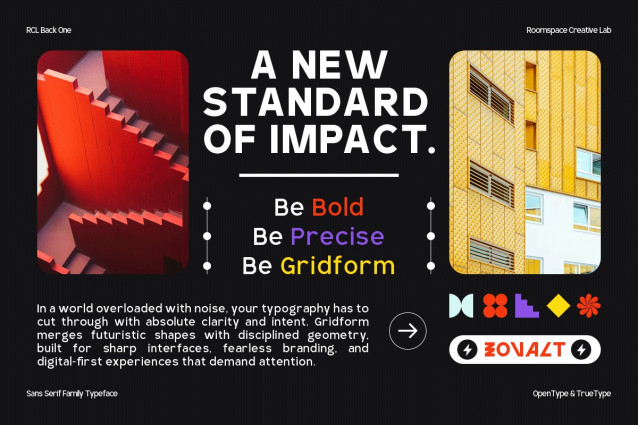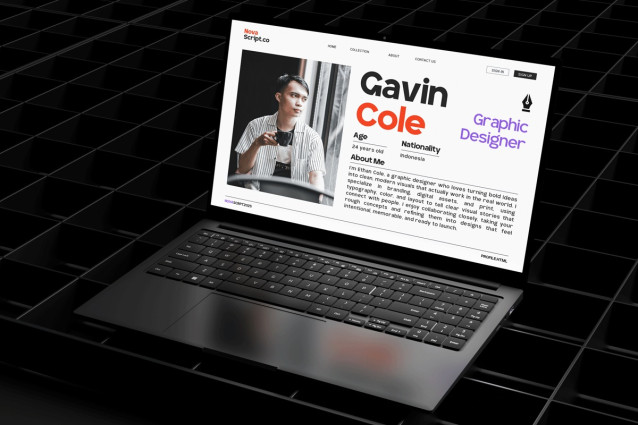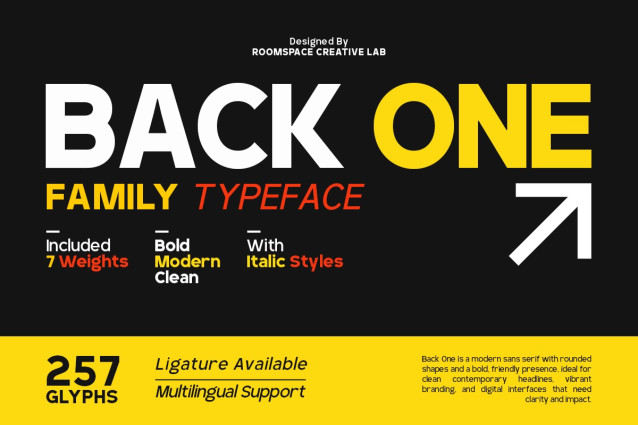
RCL Back One Font
RCL Back One Font is a bold modern sans-serif font family created to bring confidence and clarity to your designs. Its wide proportions and clean construction make it perfect for brands that want to stand out while staying professional and approachable. Back One works beautifully across branding systems, websites, mobile apps, editorial layouts, and marketing visuals. Whether you’re building a startup identity or crafting bold headlines, Back One delivers modern strength with effortless readability.